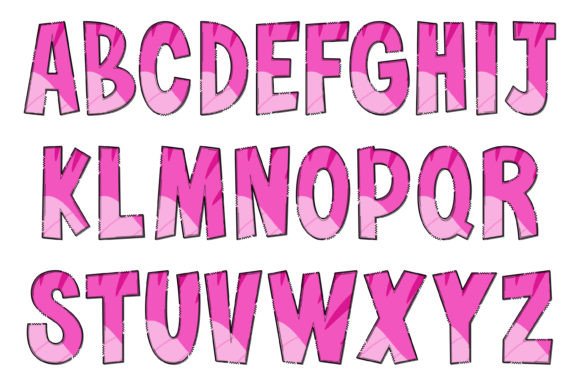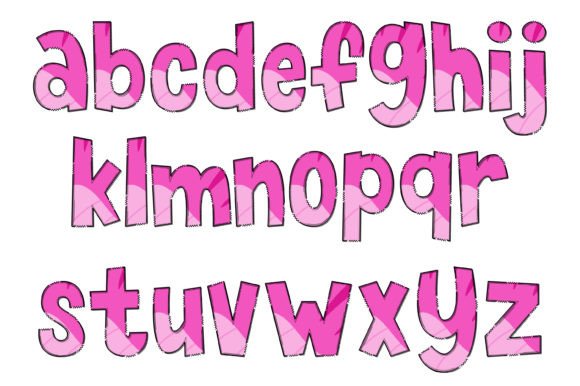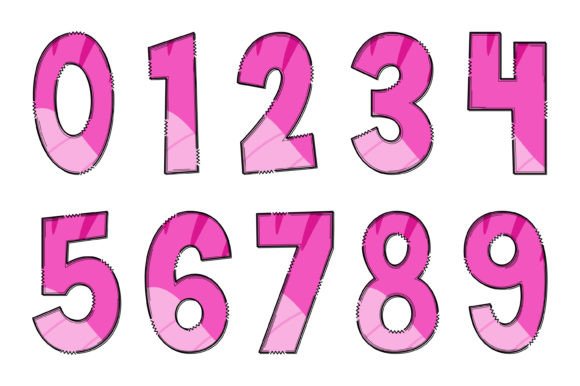
Introduction to Pink Dinous Font
Have you ever stumbled upon a font that makes you feel like a kid in a candy store? A font that transports you to a world of imagination and wonder? For designers, that moment is priceless. It’s the spark that ignites a creative project, making it truly unforgettable. And that’s exactly what the Pink Dinous Font does – it adds a touch of whimsy and magic to your designs, making them truly special.
As a valuable resource for designers, the Pink Dinous Font offers a high-quality, free download that’s perfect for any creative project. With its transparent background, you can seamlessly integrate it into your designs, adding a delicate touch of pink to your work. Whether you’re designing a children’s book, a greeting card, or a brand identity, this font is sure to bring a smile to your face and a touch of joy to your audience.
- Unique and playful style, ideal for adding a touch of whimsy to designs and creative projects
Honest Review: Pink Dinous Font
As a designer, I’m always on the lookout for high-quality design resources to elevate my creative projects. The Pink Dinous Font caught my eye, and I was excited to give it a try.
What works well: ✨ The font is incredibly versatile, with a unique blend of modern and prehistoric elements that make it perfect for branding, logos, and digital design. The transparent background is also a great touch, allowing me to easily overlay the font on top of other design elements.
Overall, I’m impressed with the Pink Dinous Font. While it may not be perfect, its unique design and high-quality construction make it a valuable addition to my design resource library. I’d definitely recommend it to designers looking for a creative solution for their next project.
To get the most out of the Pink Dinous Font, use it on a transparent background to create visually appealing designs. This font is perfect for creative projects that require a touch of whimsy and fun.
The Pink Dinous Font is commonly used in:
- Children’s book illustrations
- Party invitations and decorations
- Branding and marketing materials